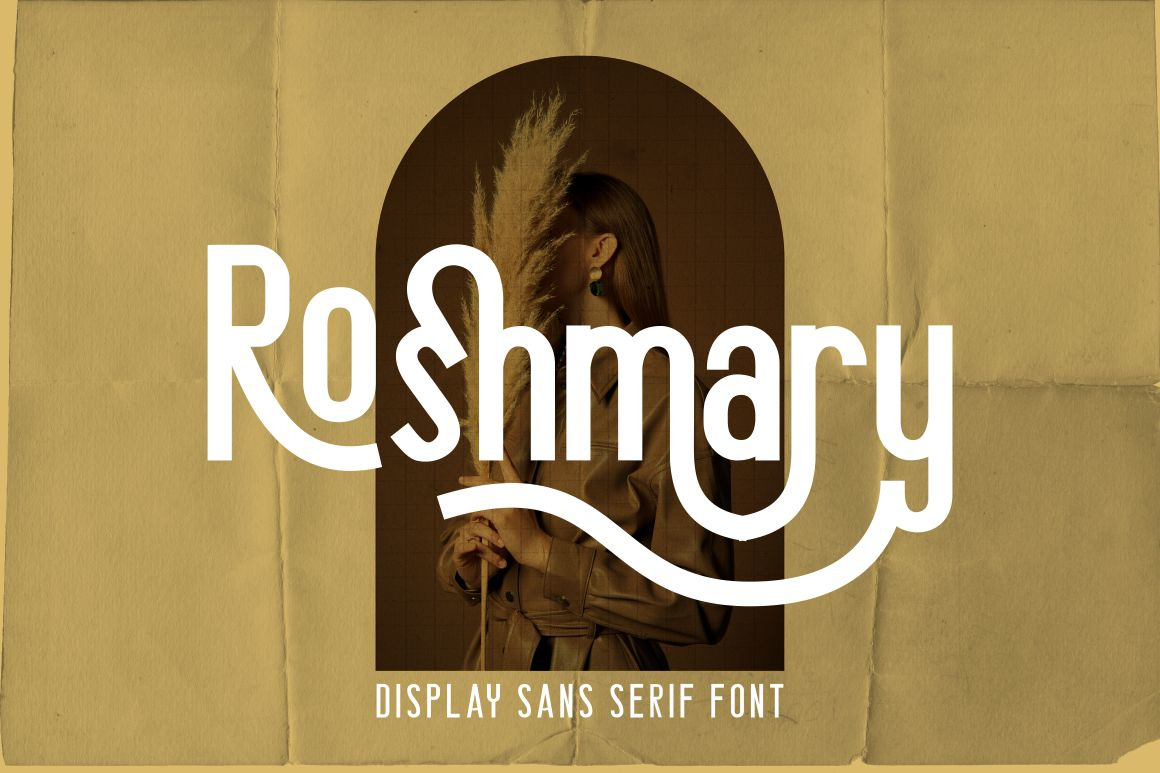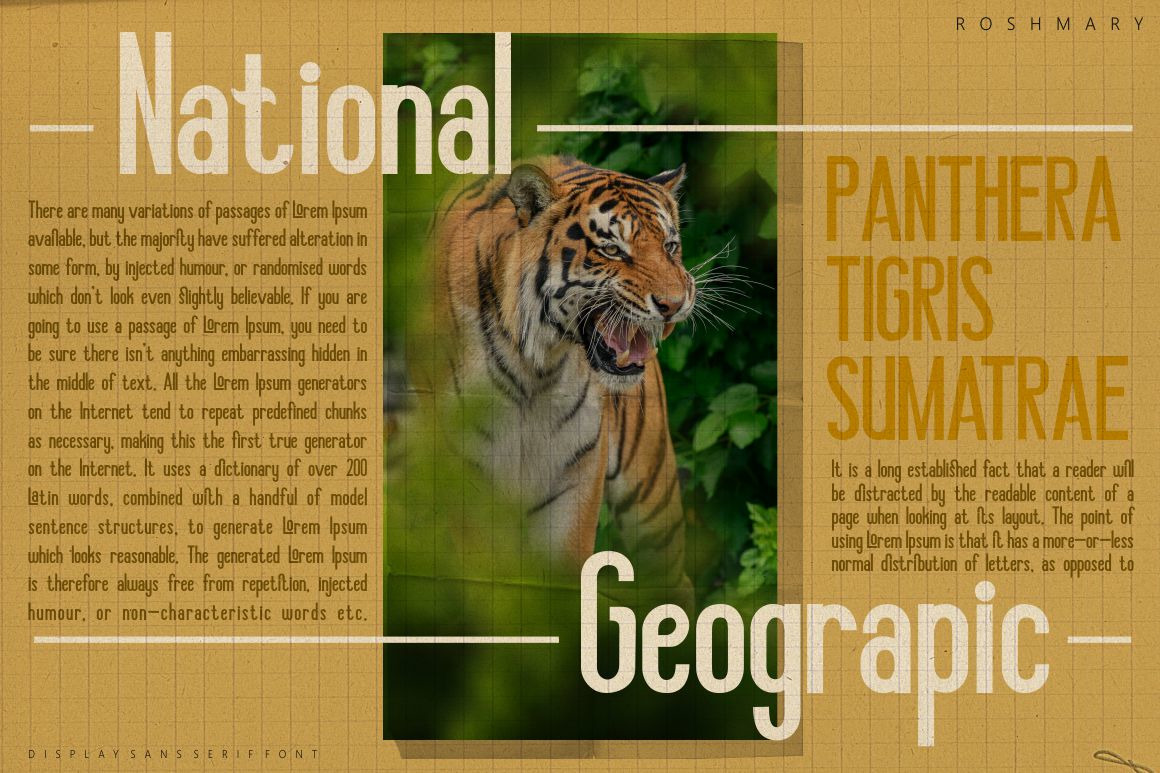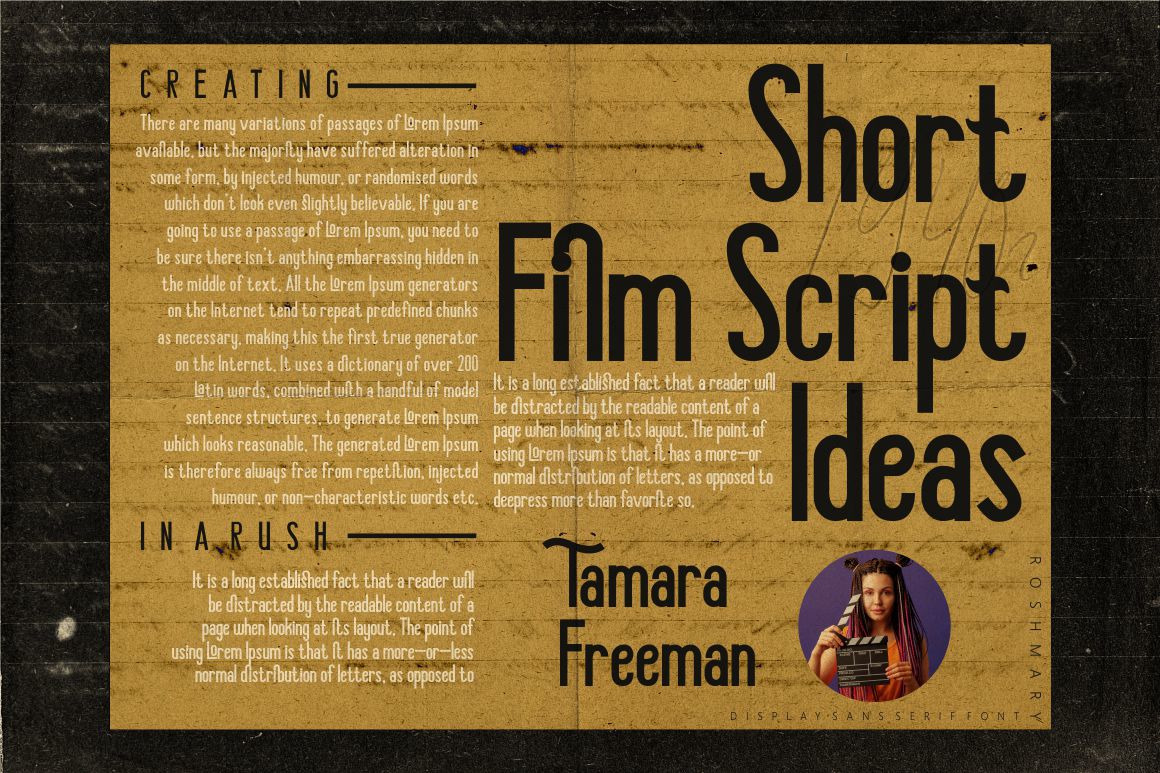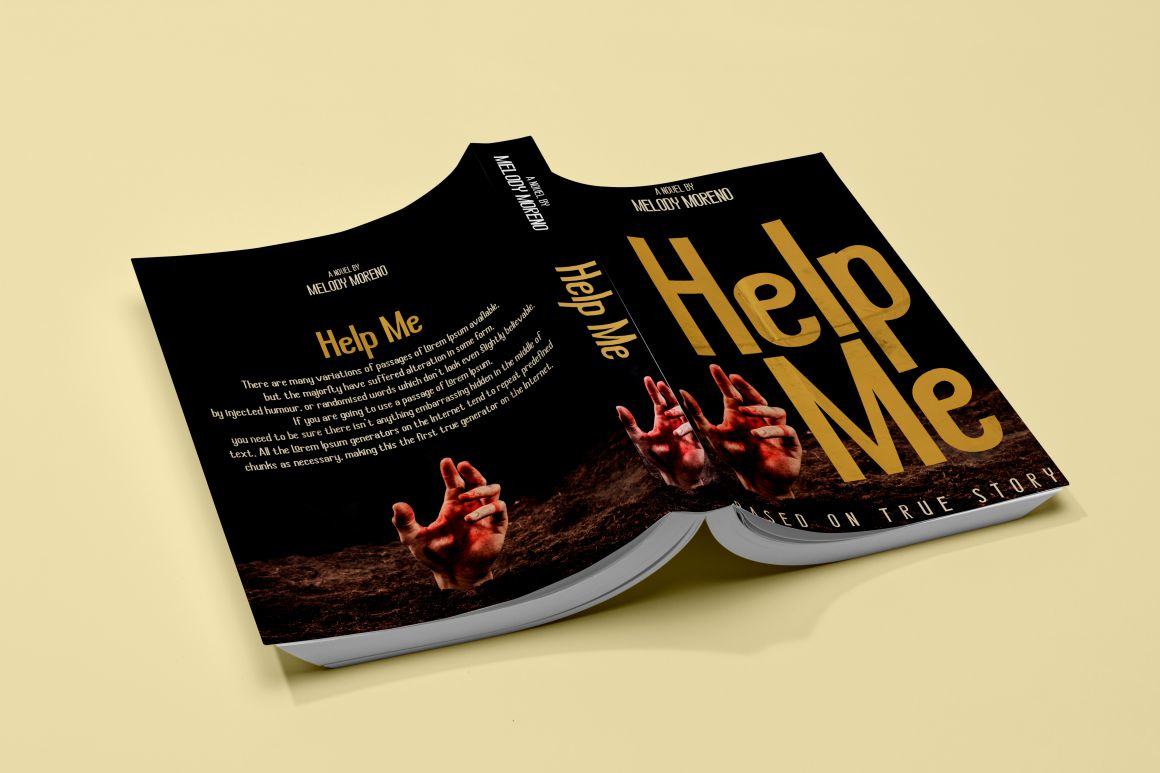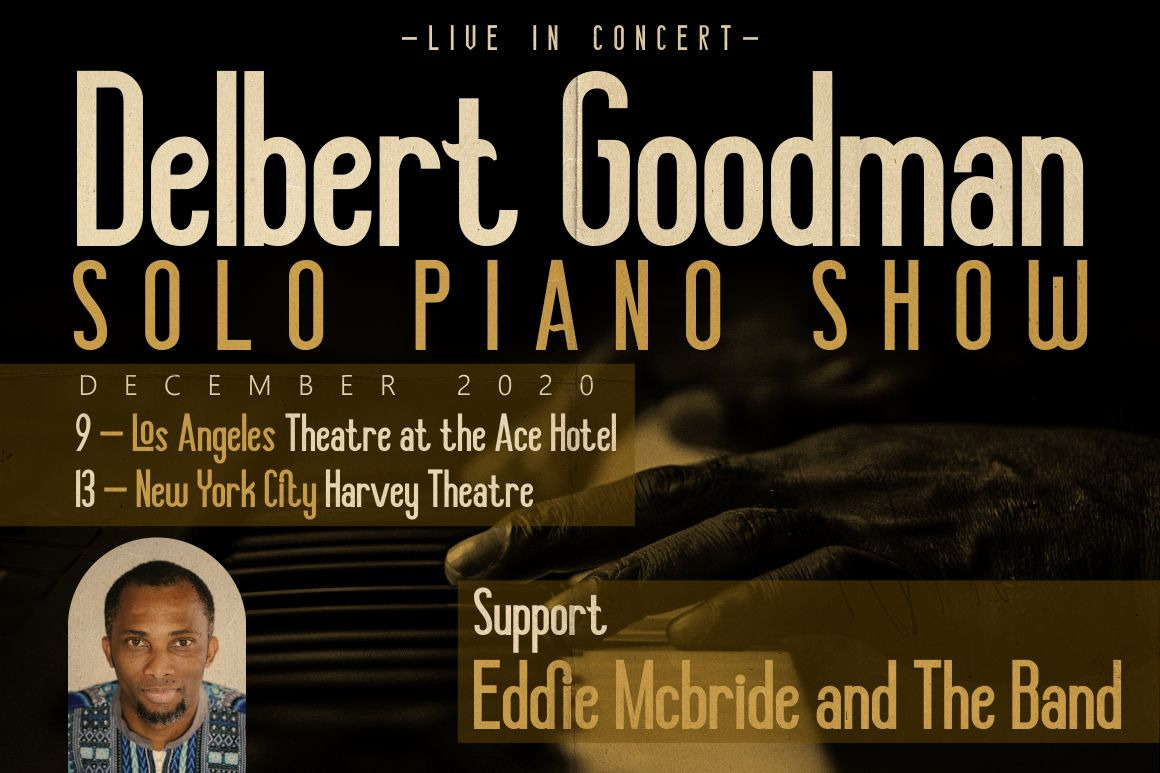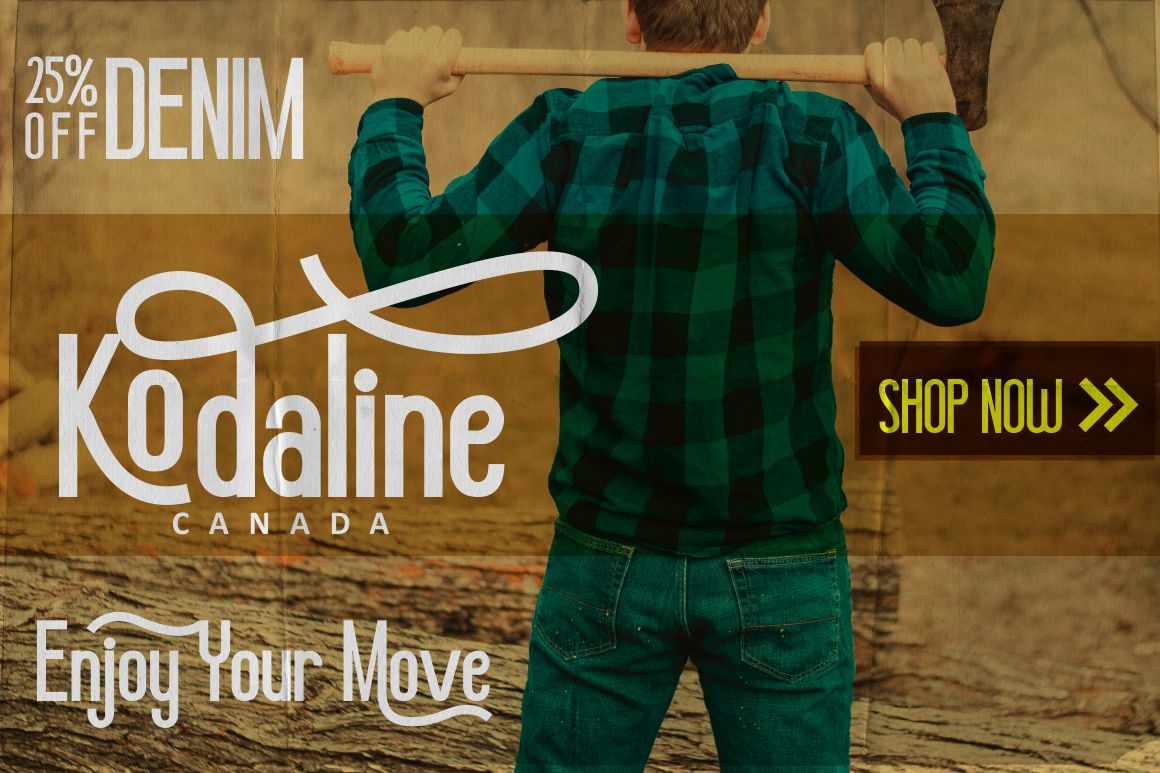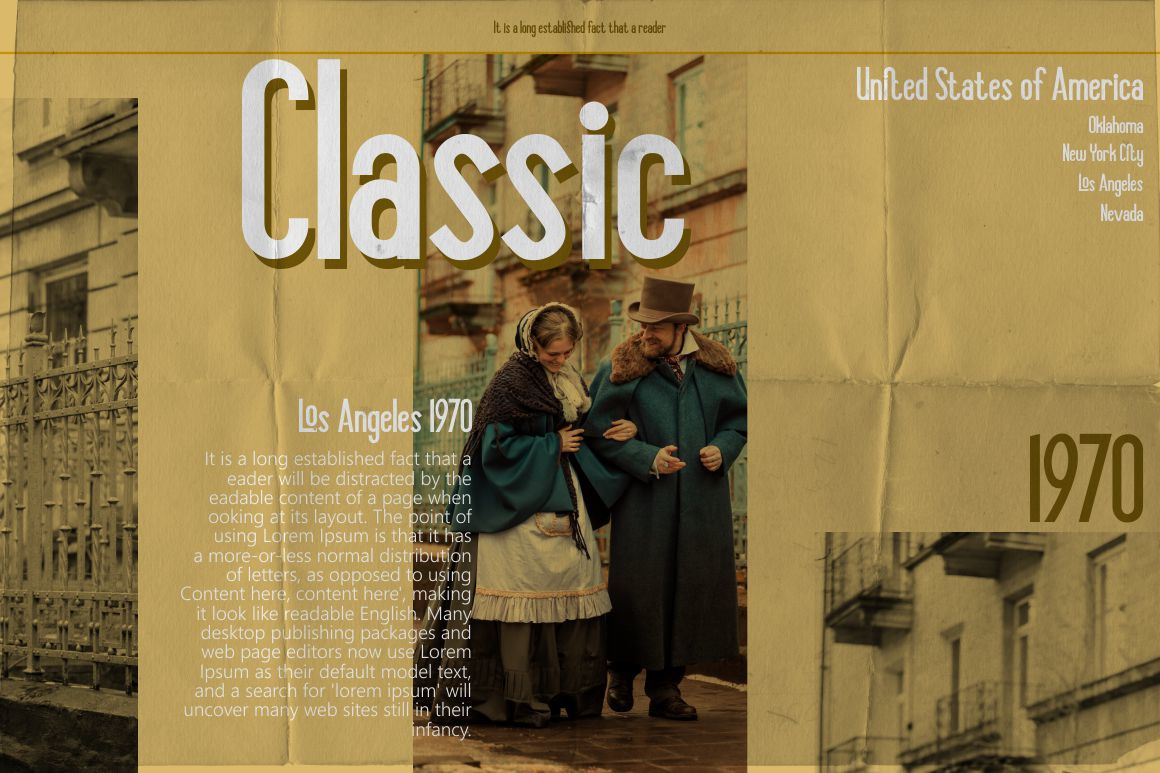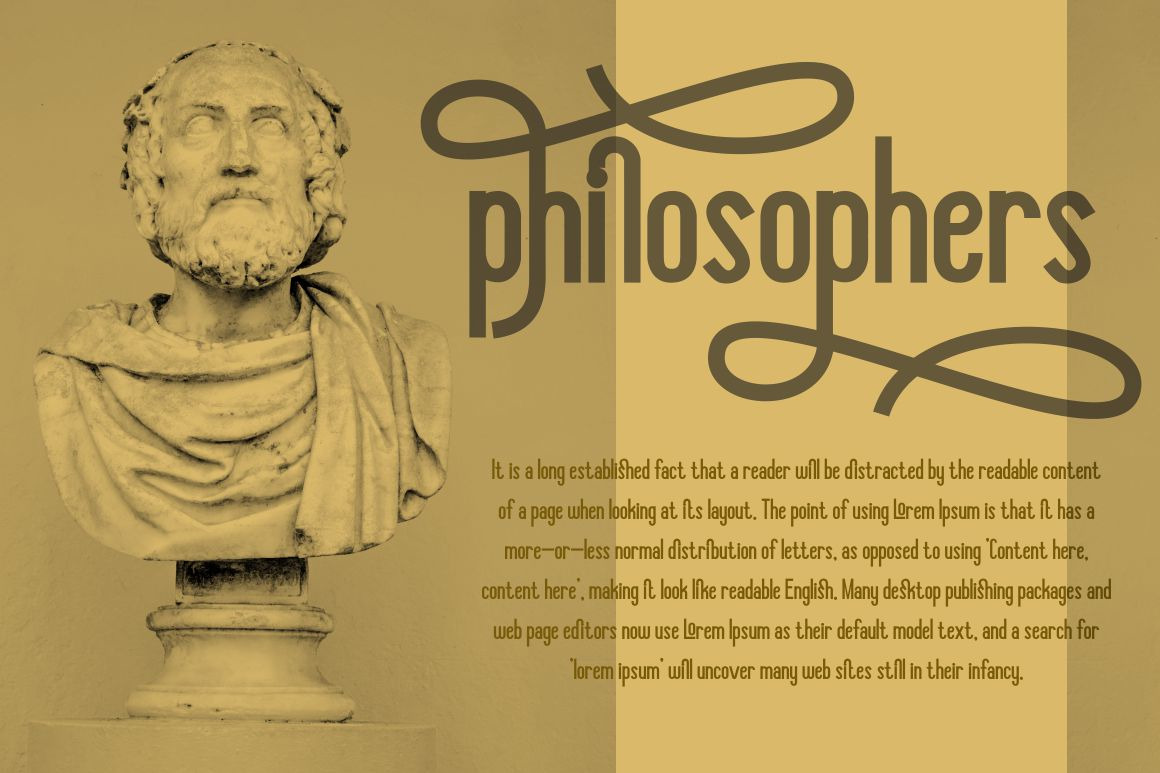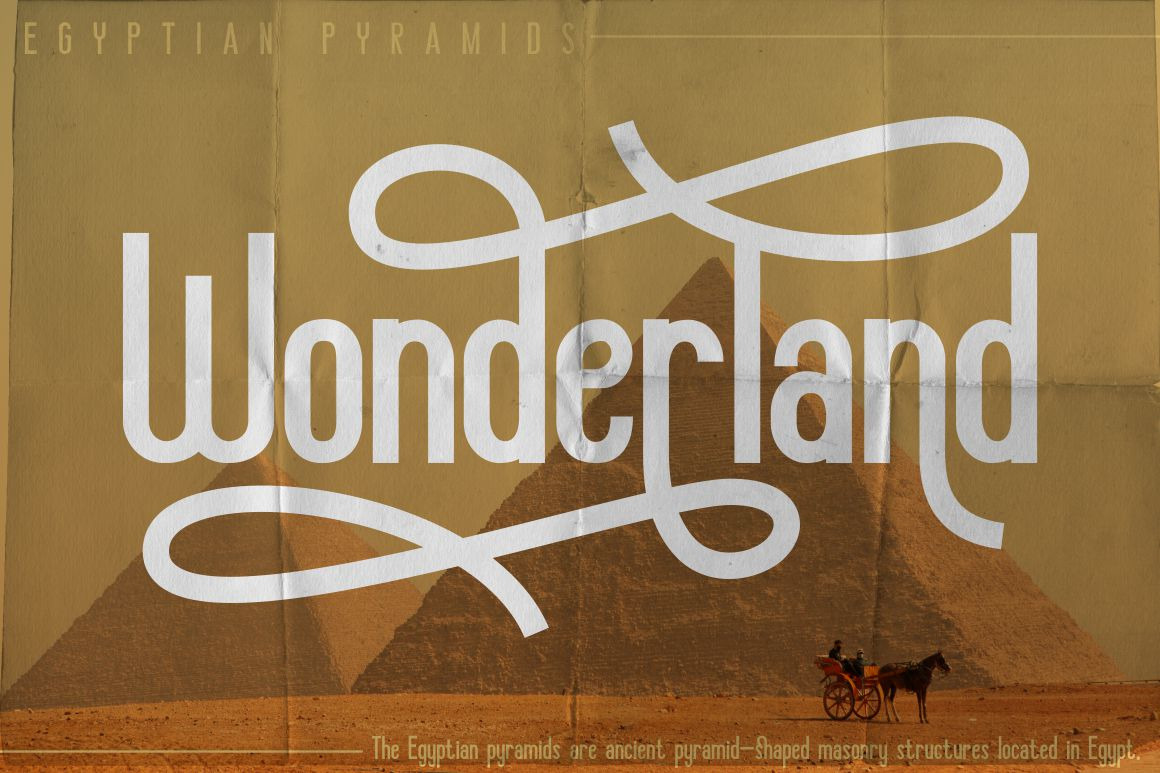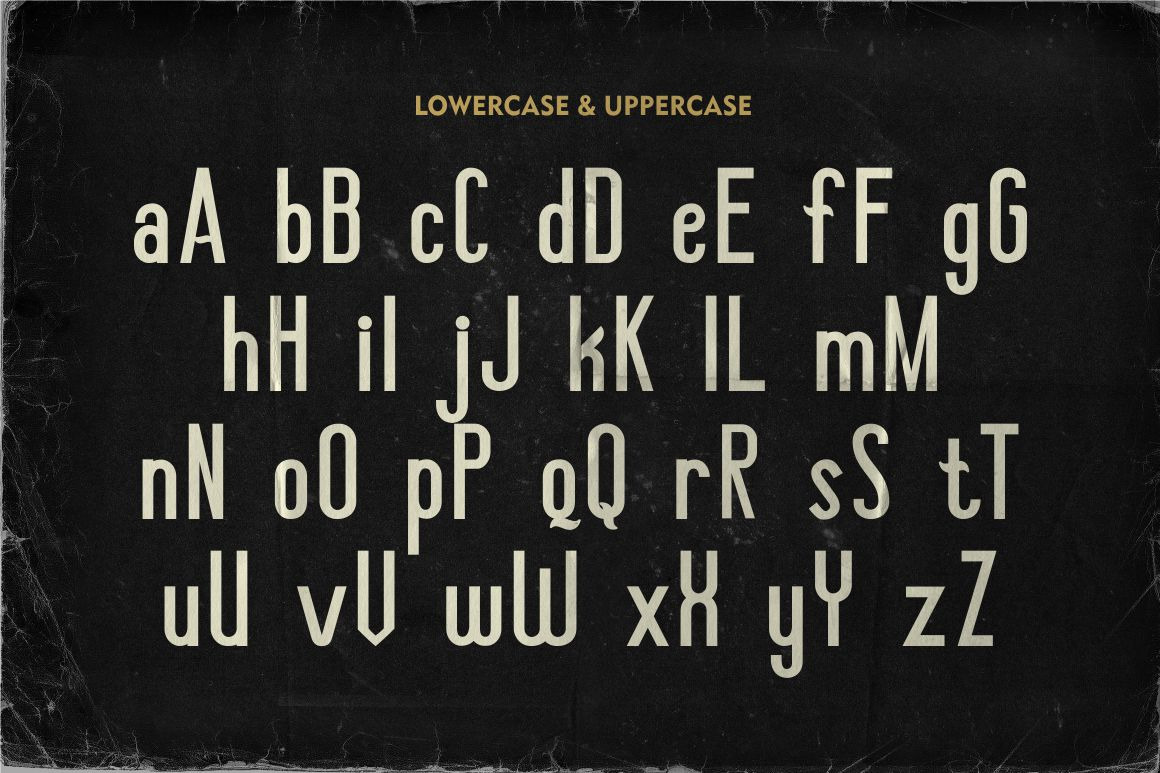
Roshmary - Display Sans Serif Font
Introducing Roshmary - Display Sans Font
Roshmary is a Display sans serif font with beautiful ligatures, tons of alternative glyphs and multilingual support. It's bold clean and simple.
Come with open type feature with a lot of alternates, its help you to make great lettering.
Roshmary best uses for heading headlines, cover, poster, logos, quotes, product packaging, merchandise, social media & greeting cards and many more.